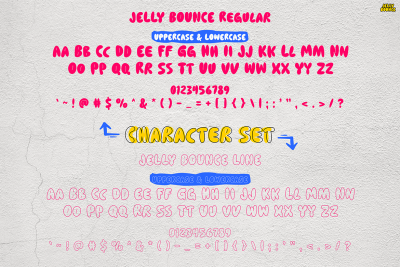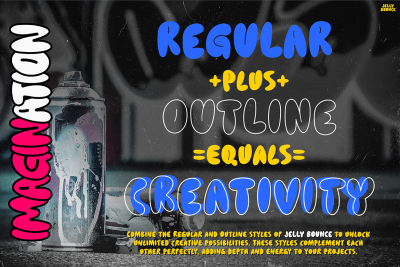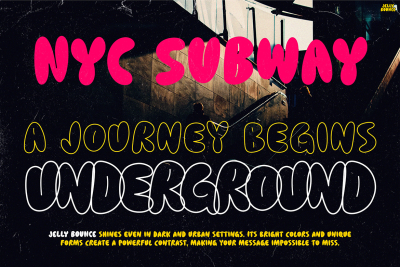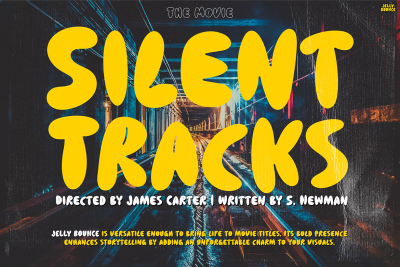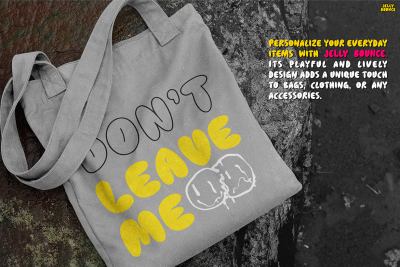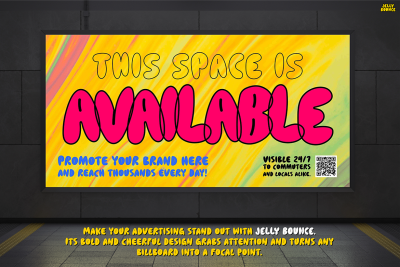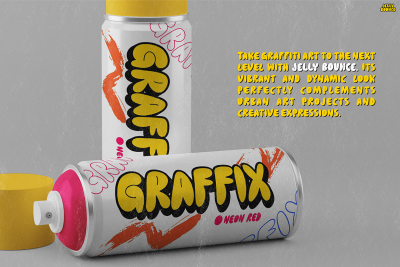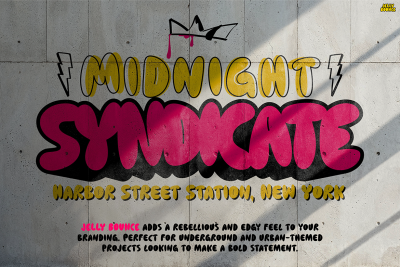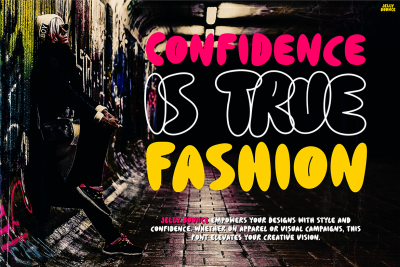
Bubble Font Jelly Bounce is a playful, vibrant typeface designed to inject energy and creativity into any project. Featuring bold, rounded letterforms with a bouncy, hand-drawn aesthetic, this font is perfect for fun, dynamic designs. Moreover, the combination of its regular and outline styles offers versatility, allowing you to layer or mix them for striking effects. With its cheerful and approachable look, Jelly Bounce creates a sense of joy and spontaneity that captures attention instantly.
This font is ideal for designs that need a touch of whimsy while maintaining clarity and impact. Furthermore, its bubbly, soft curves and lively personality make it a standout choice for creative projects, branding, and advertising. Whether you’re designing for childrenโs products, party invitations, or bold digital media campaigns, Bubble Font Jelly Bounce adds a sense of playfulness that keeps the focus on your message. Additionally, its layered possibilities open up countless creative combinations, making it a go-to choice for designers seeking bold and versatile typography.
Bubble Font Jelly Bounce Perfect For
Jelly Bounce is designed for anyone who wants to add fun and energy to their designs. Here are some of the best use cases for this font:
- Kids’ Products and Branding
Whether itโs toys, clothing, or educational materials, Jelly Bounce is perfect for brands targeting a young audience. Its soft, friendly shapes create a sense of warmth and excitement. As a result, it effectively appeals to children and parents alike. - Party and Event Invitations
From birthday parties to playful corporate events, this font brings a festive and inviting feel to flyers, invitations, and posters. Consequently, it helps set the tone for celebrations and gatherings. - Food and Beverage Packaging
Perfect for ice cream brands, snack products, or bubble tea shops, Jelly Bounce conveys freshness and fun. Moreover, its bubbly style enhances product appeal for younger and family-oriented markets. - Social Media and Digital Campaigns
In the digital age, attention is everything. Therefore, Jelly Bounceโs vibrant and bold design works perfectly for eye-catching Instagram posts, stories, and digital ads. Additionally, its energetic style ensures your content stands out in crowded feeds. - Creative Designers
Designers looking to explore fun, light-hearted concepts will find Jelly Bounce an invaluable tool. Furthermore, the combination of its regular and outline styles provides the flexibility to experiment and create unique results.
In conclusion, Bubble Font Jelly Bounce is the ultimate choice for projects that need a lively and energetic vibe. Its unique look, combined with versatility and playful charm, ensures your designs will stand out. Consequently, it allows you to communicate your message in a way that is both fun and impactful.